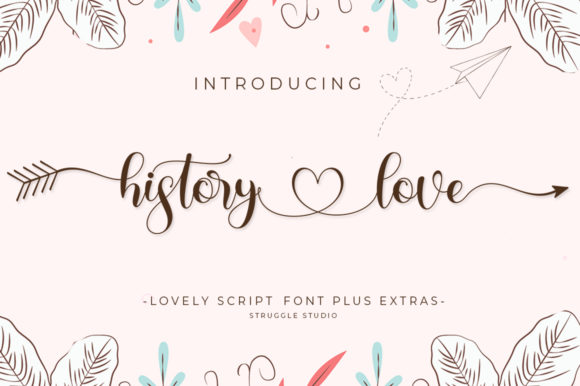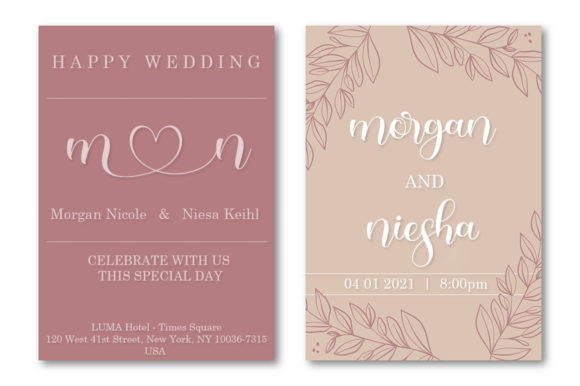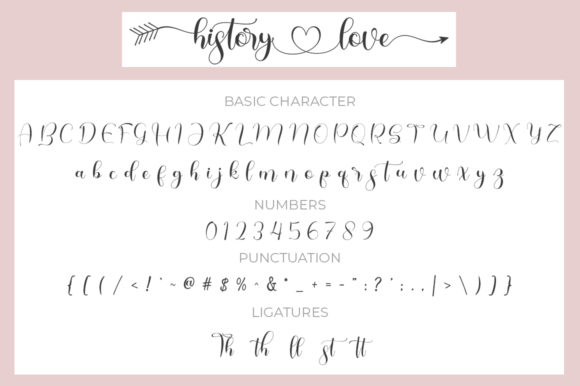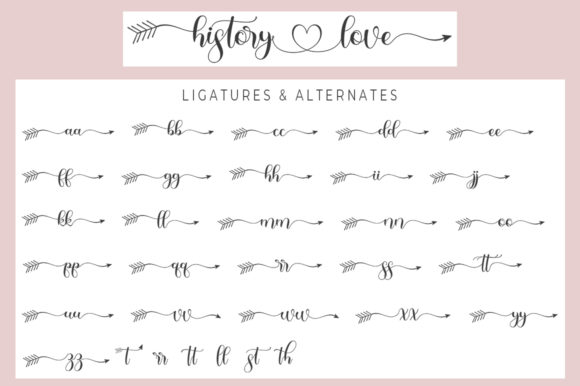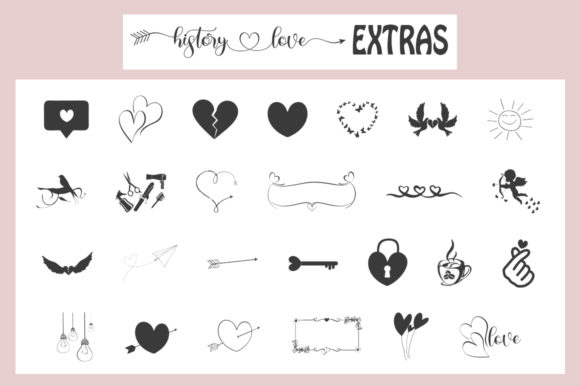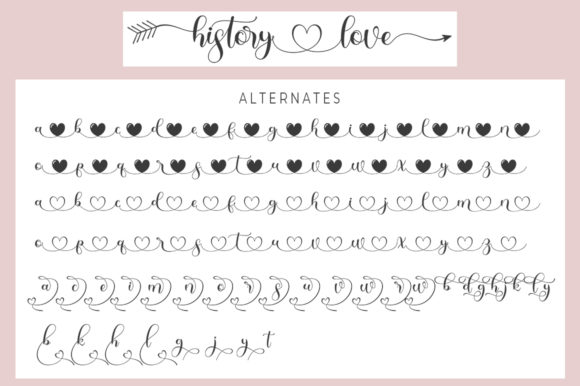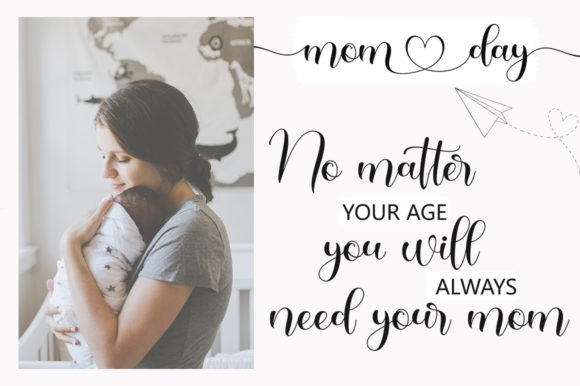
History Love Font
About History Love Font
History Love is a modern and beautiful script font. It features cute extras that will add a romantic touch toy our designs. Fall in love with its authentic feel and use it to create gorgeous wedding invitations, beautiful stationary art, eye-catching social media posts, and cute greeting cards.
This font is PUA encoded which means you can access all of the amazing glyphs and swashes with ease! It also features a wealth of special features including alternate glyphs and ligatures.